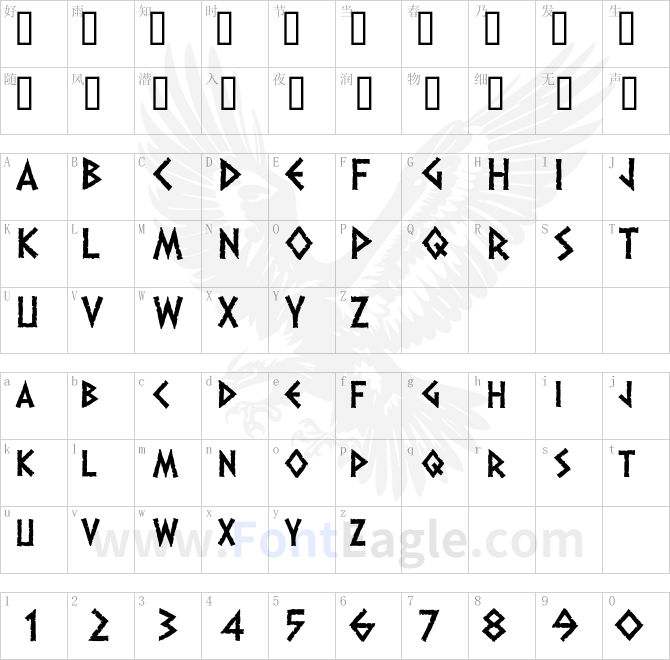
- Font Copyright:Dalek by Keith Bates is a free font based on the lettering used in the Dalek Book of 1964 and in the Daleks strip in TV21 comic. K-Type Freebie 2005, www.k-type.com